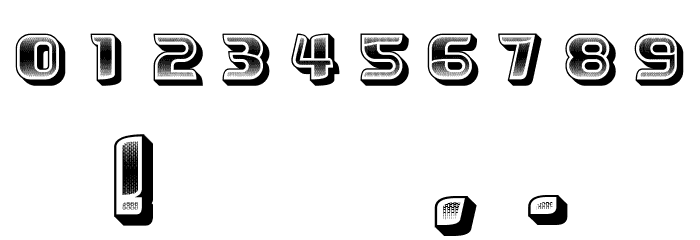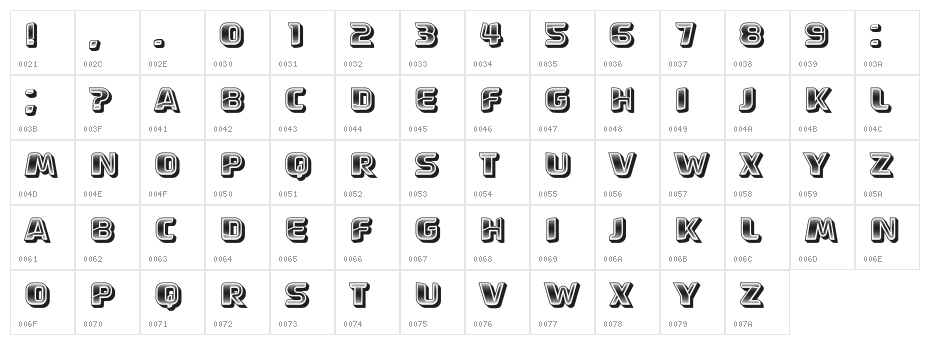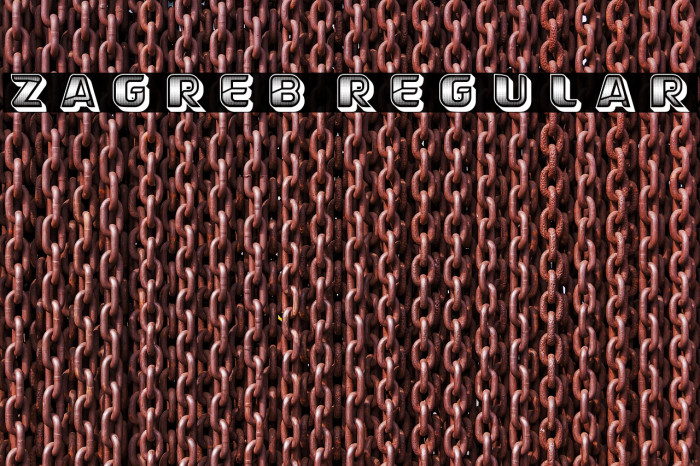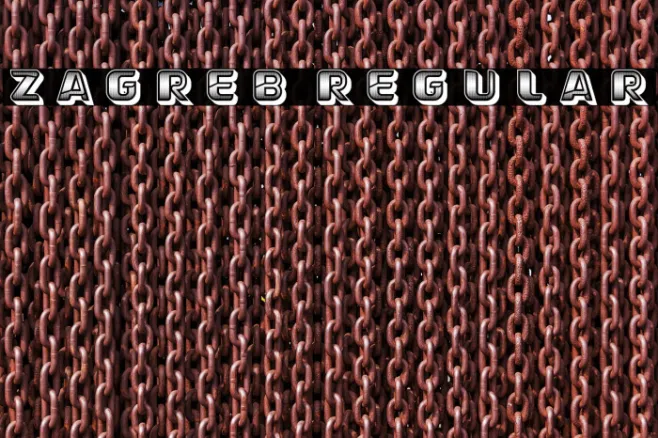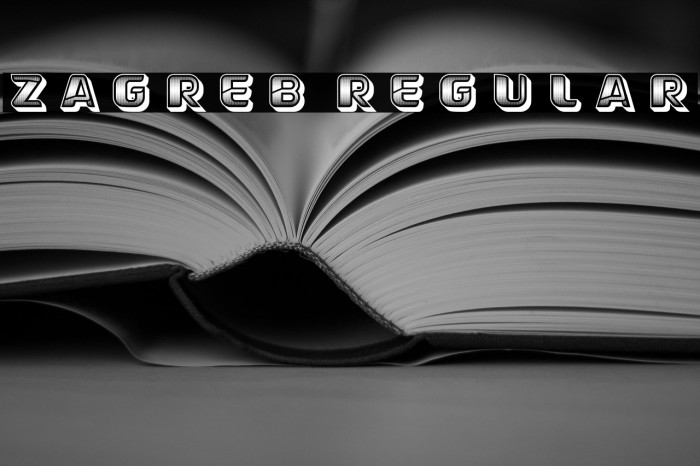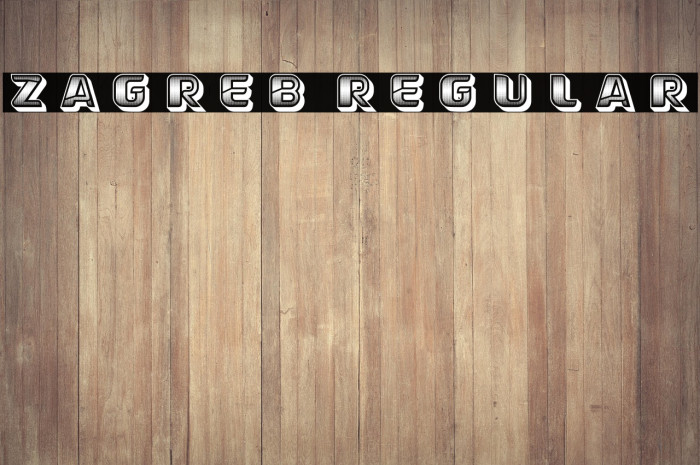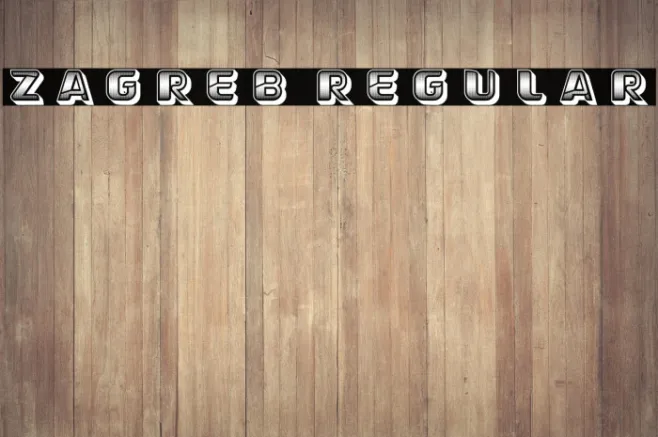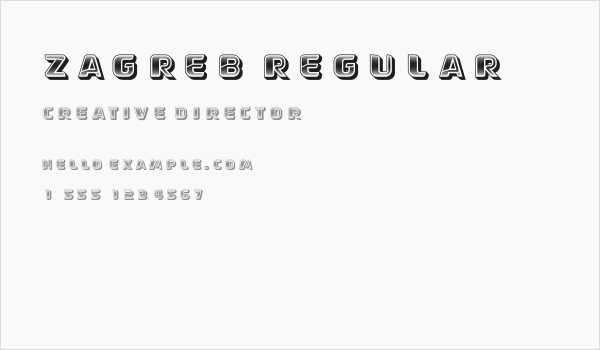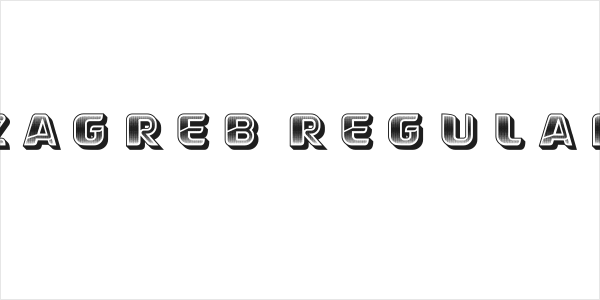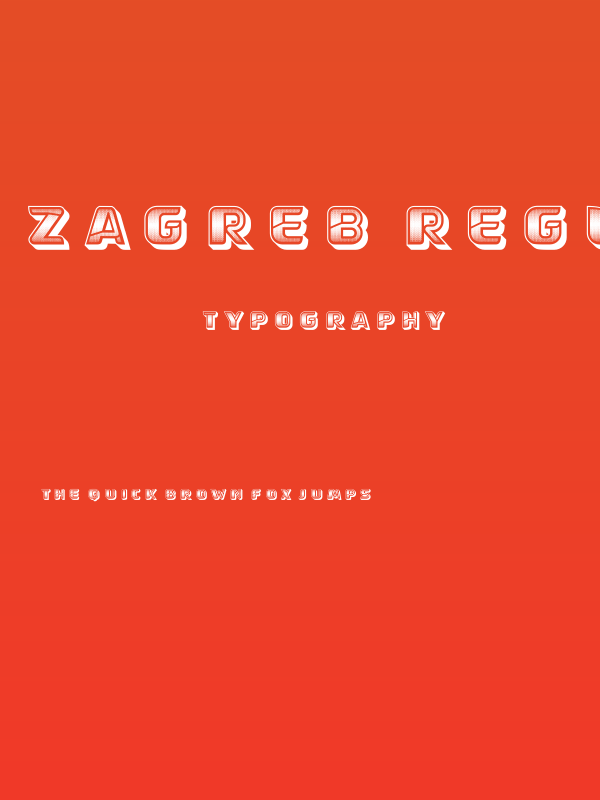
Zagreb Regular Font
Zagreb Regular Description
This font features a bold, three-dimensional design with a distinct shadow effect that gives each character a sense of depth and volume. The letters are uppercase, with a consistent width and height, creating a uniform appearance. The style is reminiscent of vintage signage, with a modern twist that makes it suitable for contemporary designs. The characters are well-spaced, ensuring readability while maintaining a strong visual impact. The numbers and special characters follow the same design principles, providing a cohesive look across all elements.